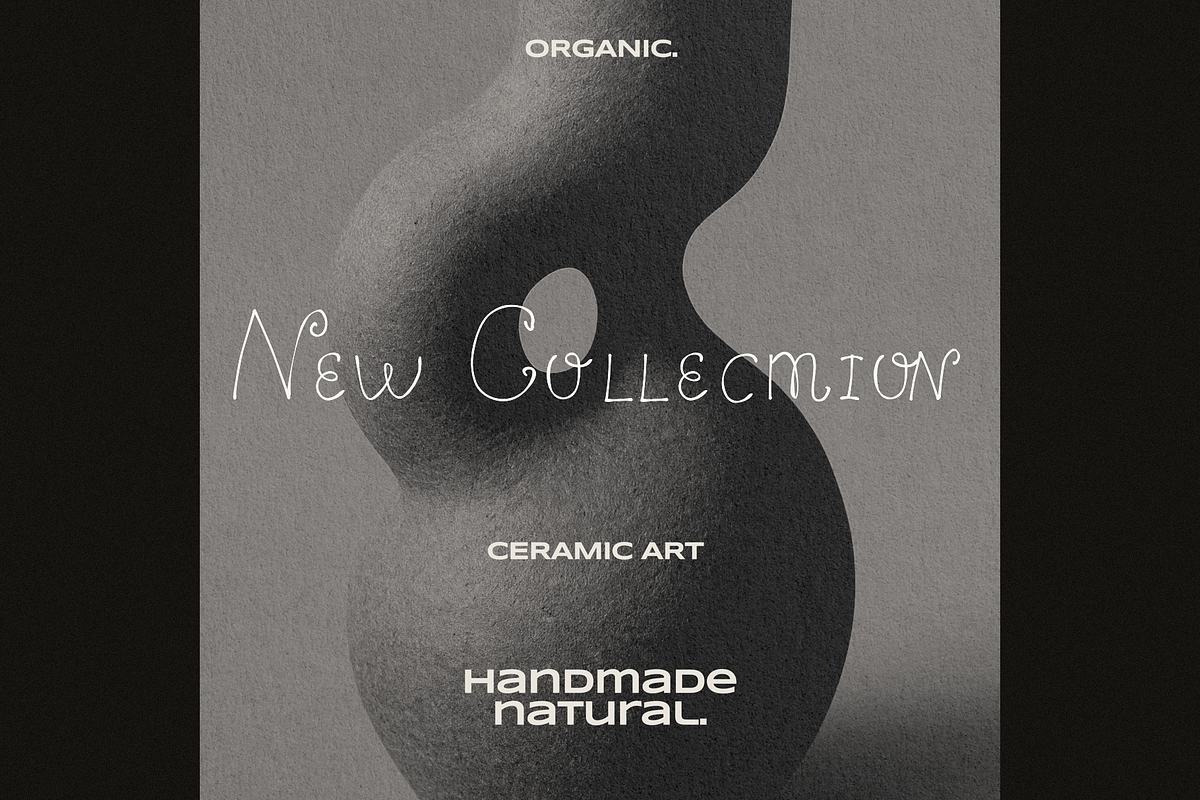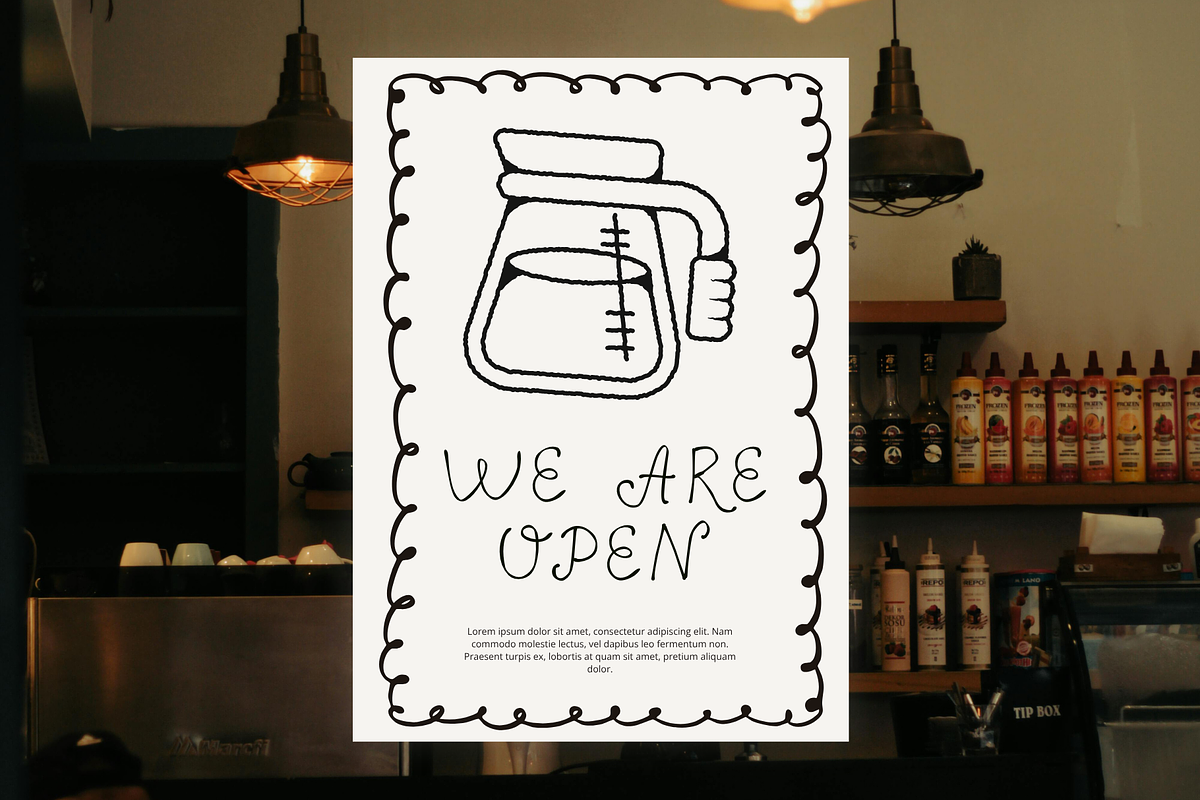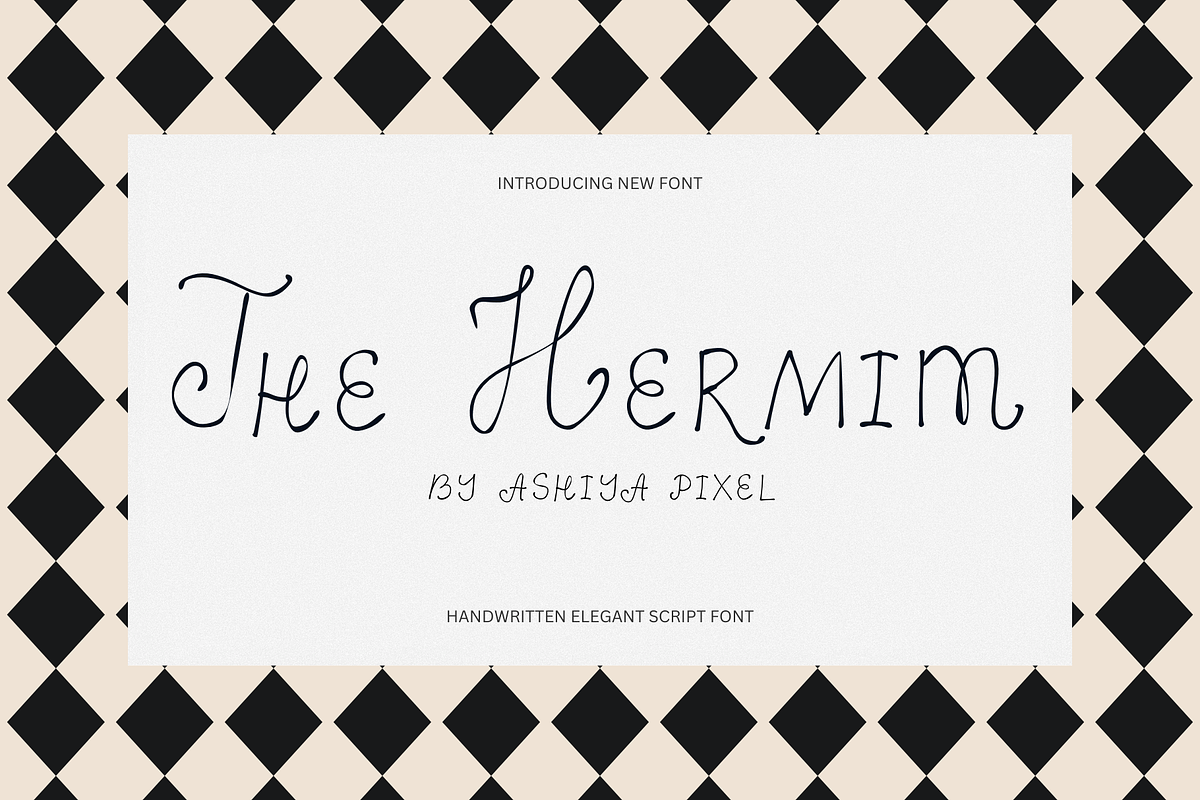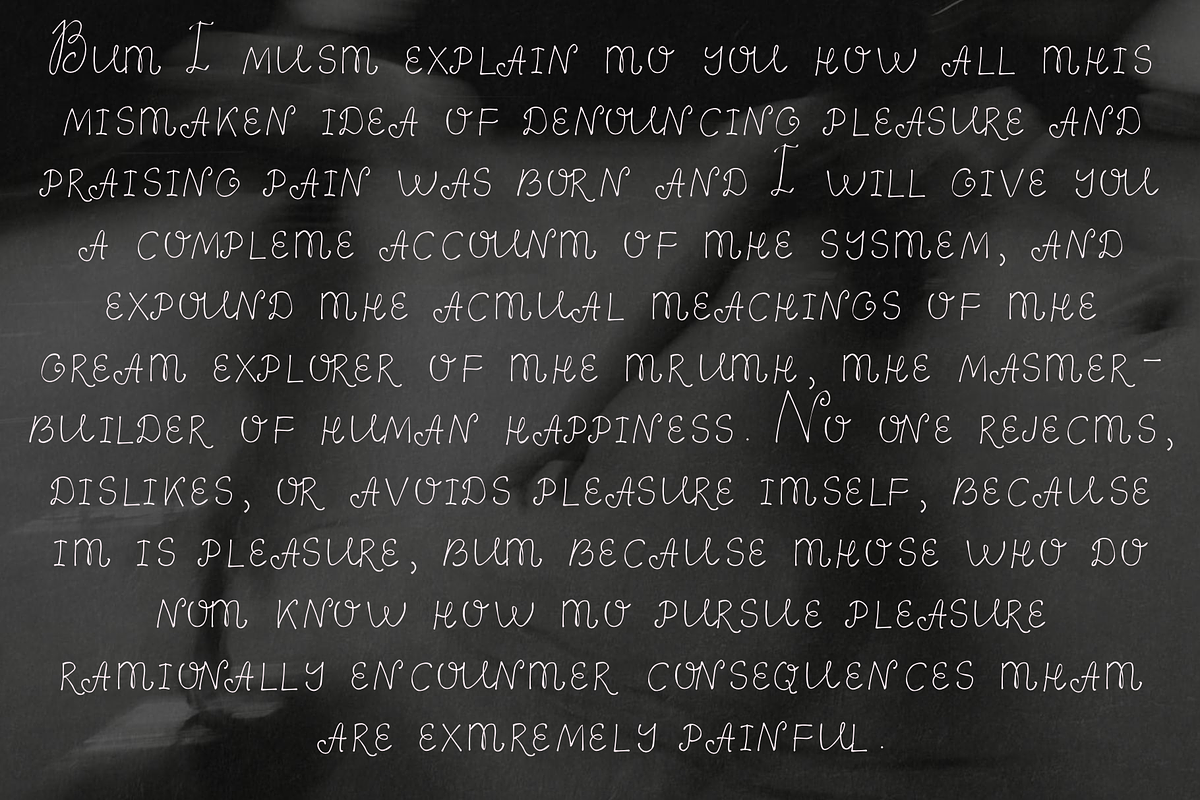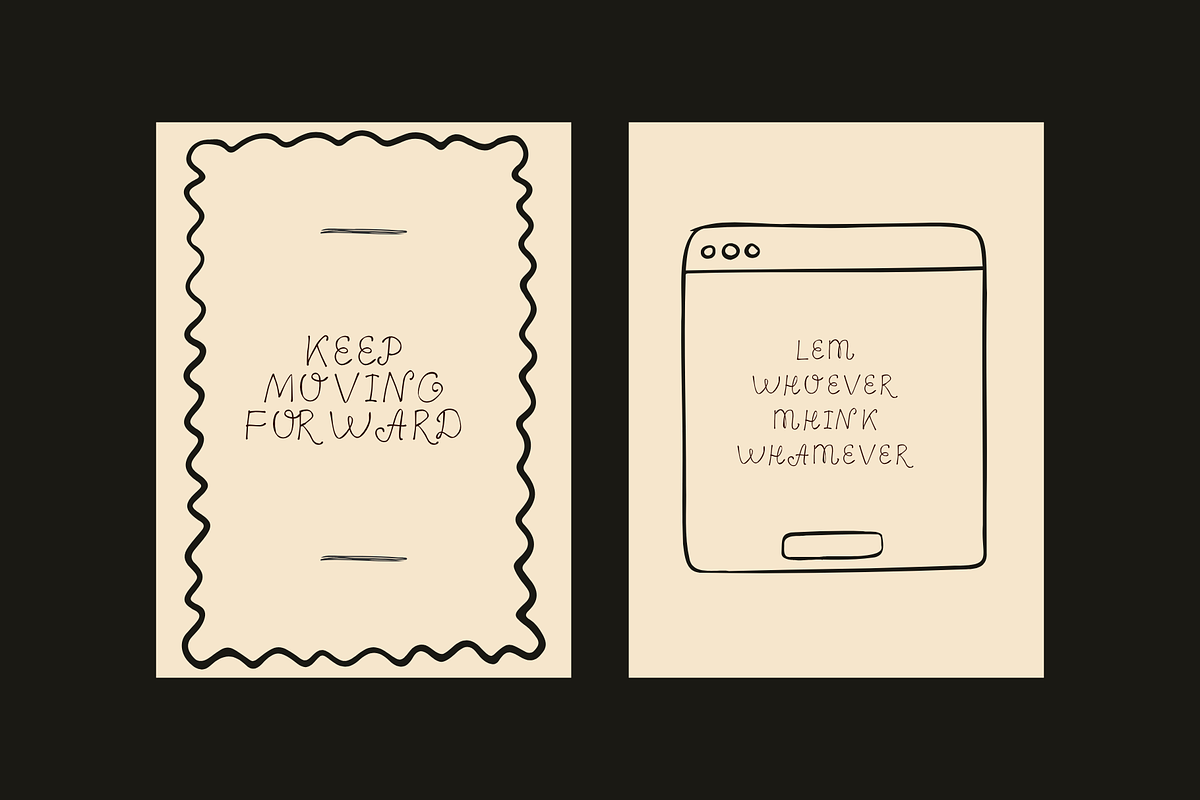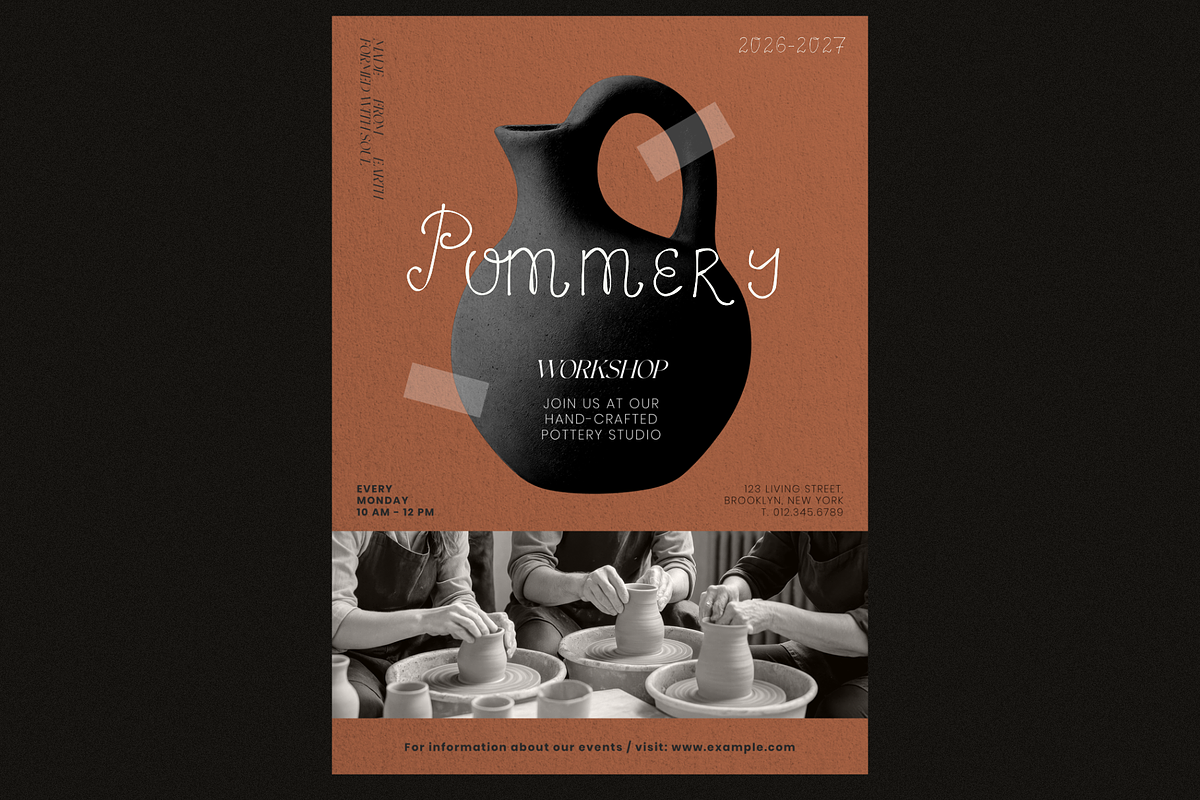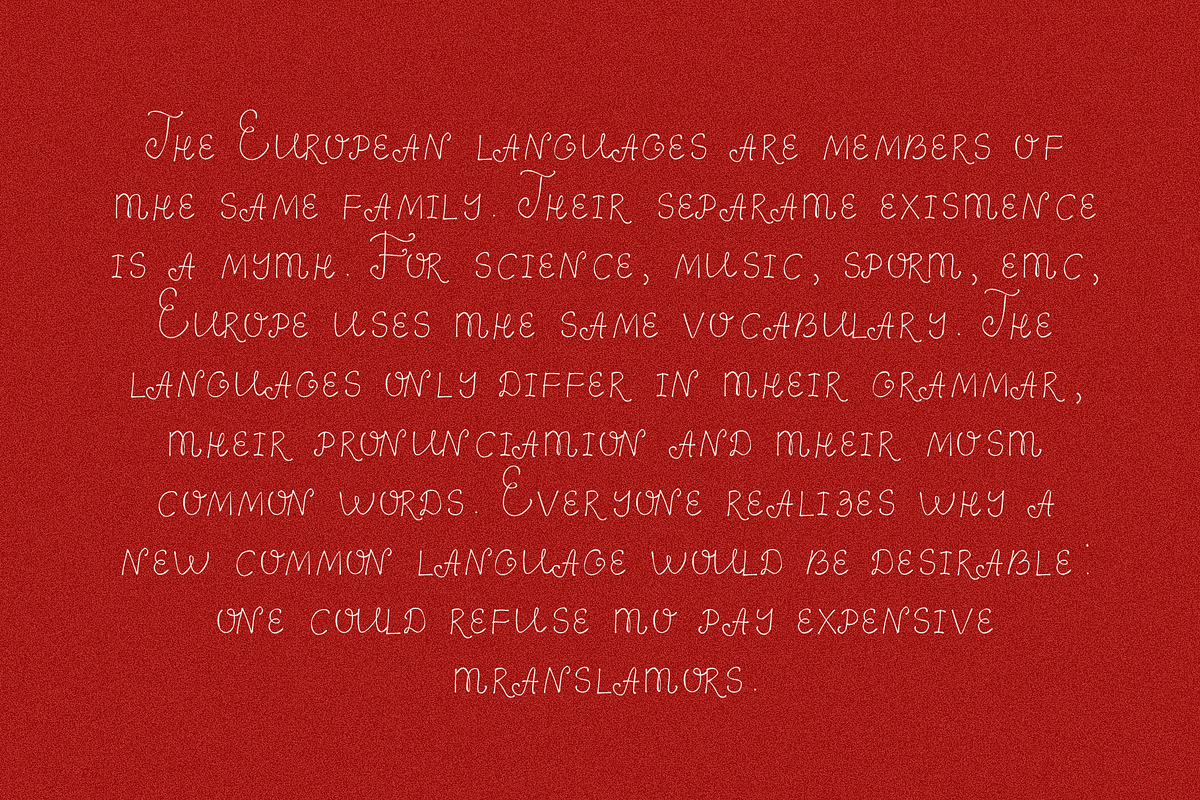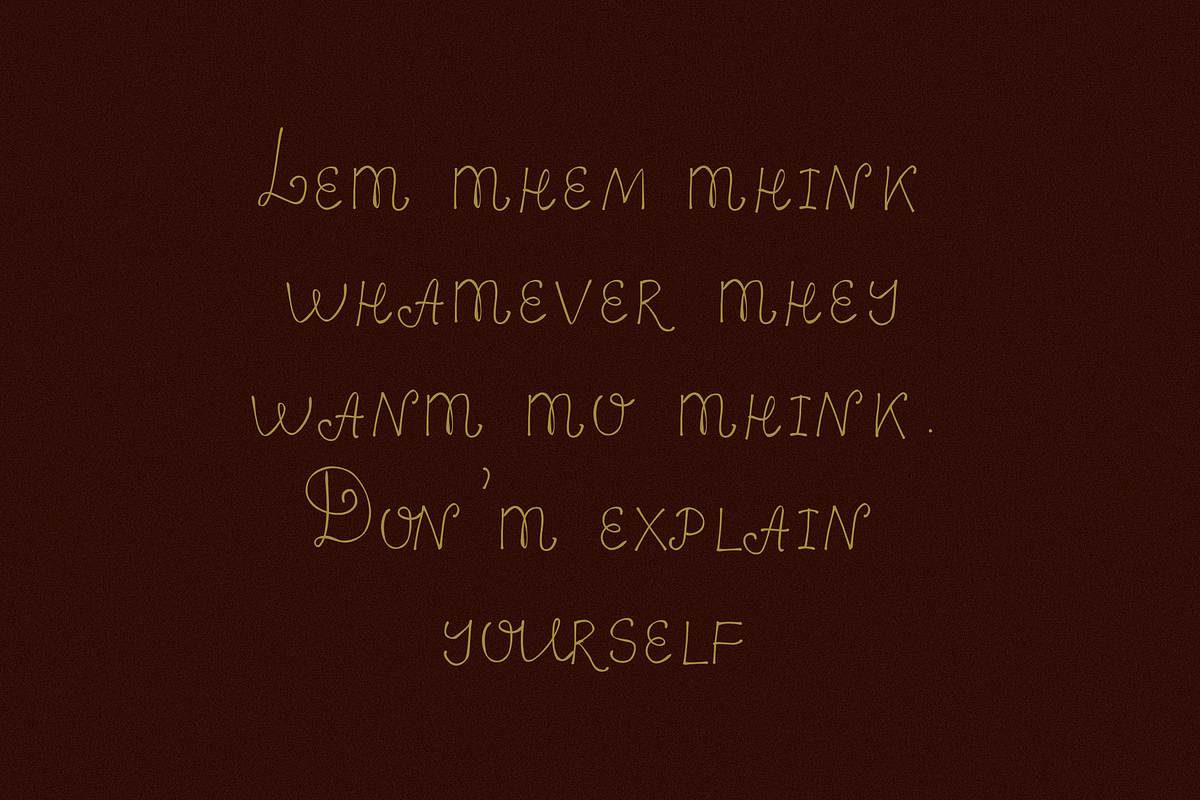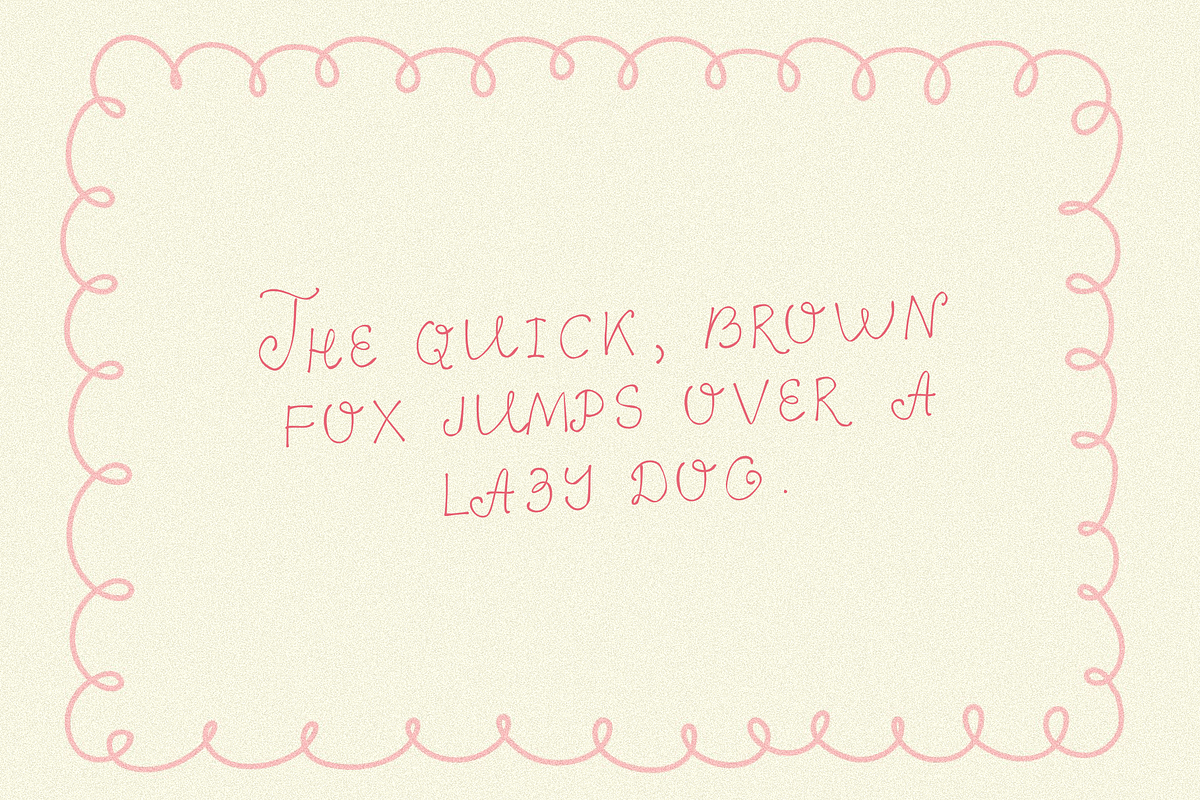
The Hermit Whimsical Elegant Font
The Hermit is a delicate, monoline handwritten script font with a romantic, whimsical character. Defined by its fine-lined strokes, elegant swirls, and decorative capital letters, it strikes a seamless balance between vintage aesthetic and lighthearted charm.
Ideal For:
Branding & Identity: Boutique logos, packaging, candle labels, and perfume branding.
Stationery & Events: Wedding invitations, greeting cards, poetry prints, and editorial design.
Digital & Social Media: Aesthetic Instagram quotes, Pinterest graphics, and digital planner decoration.